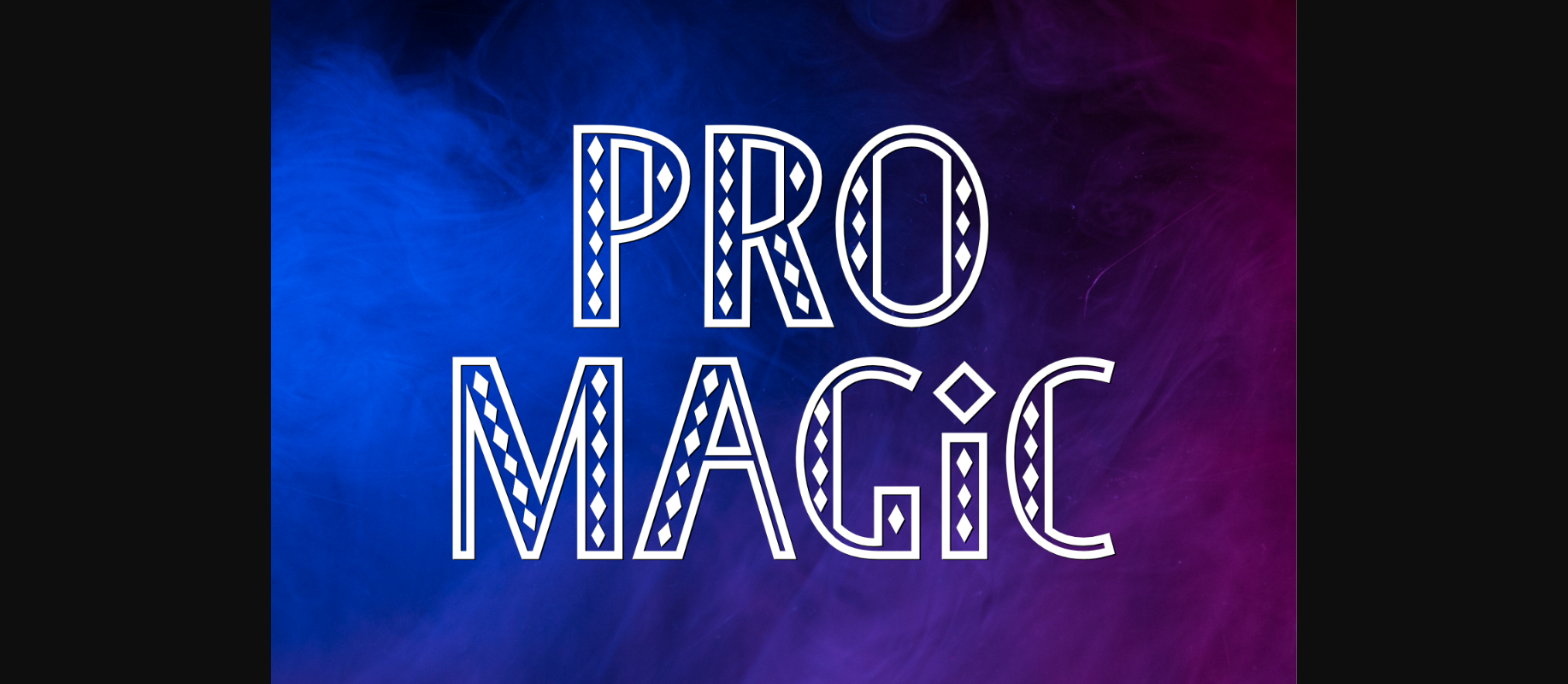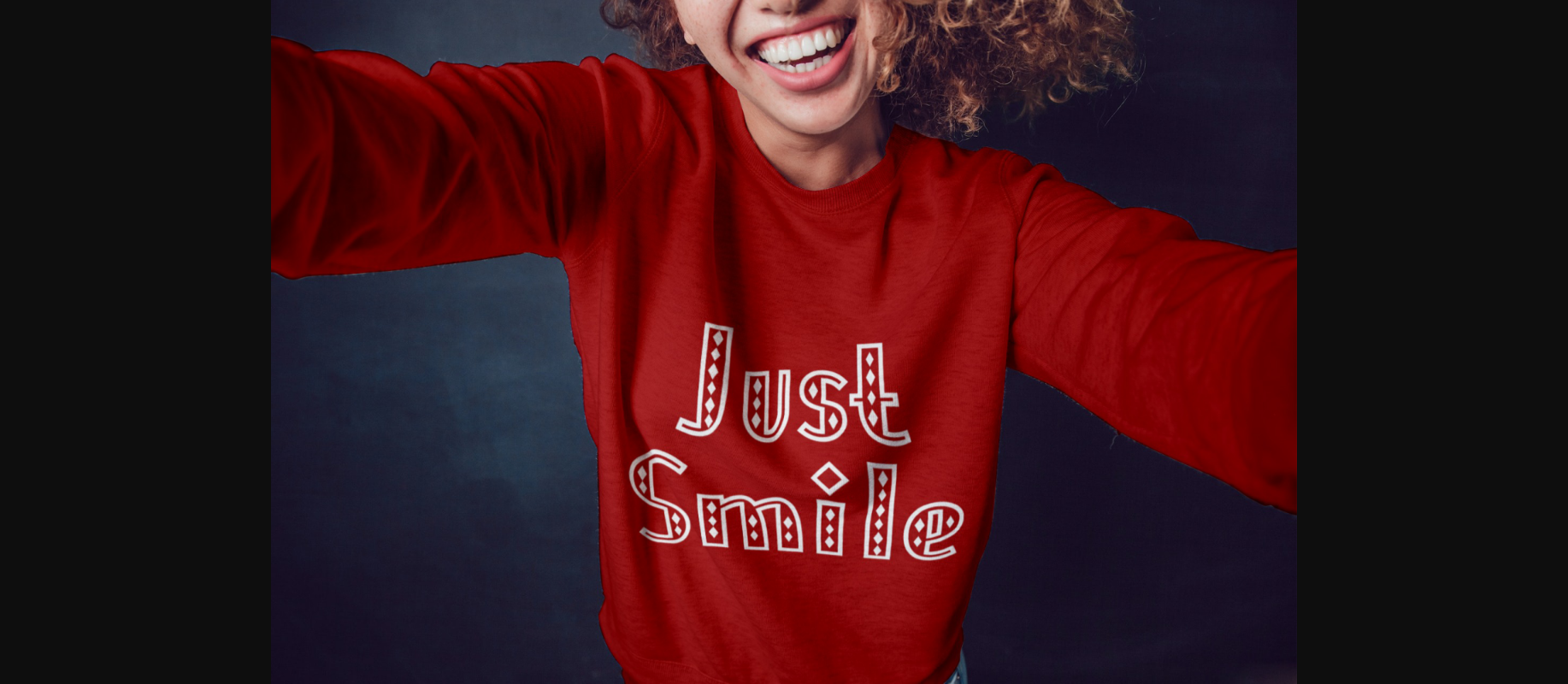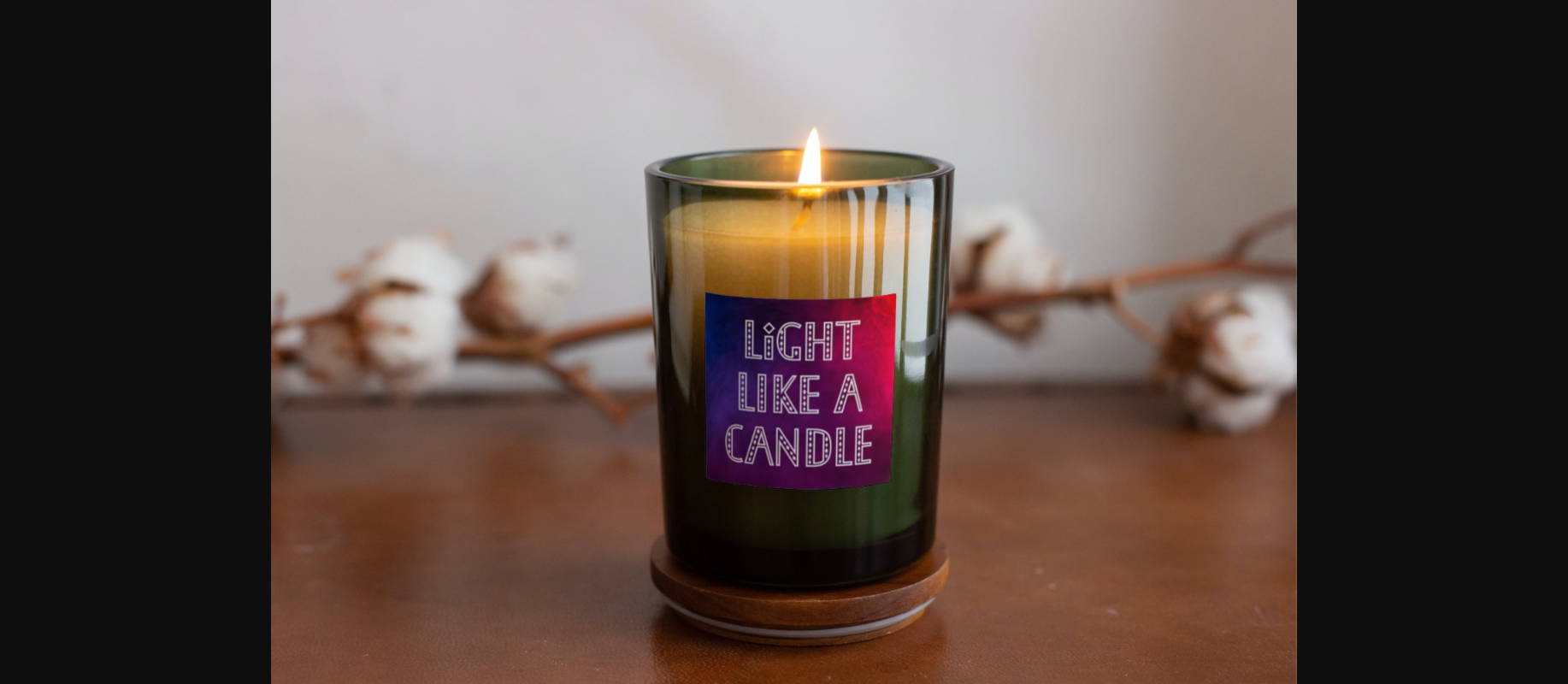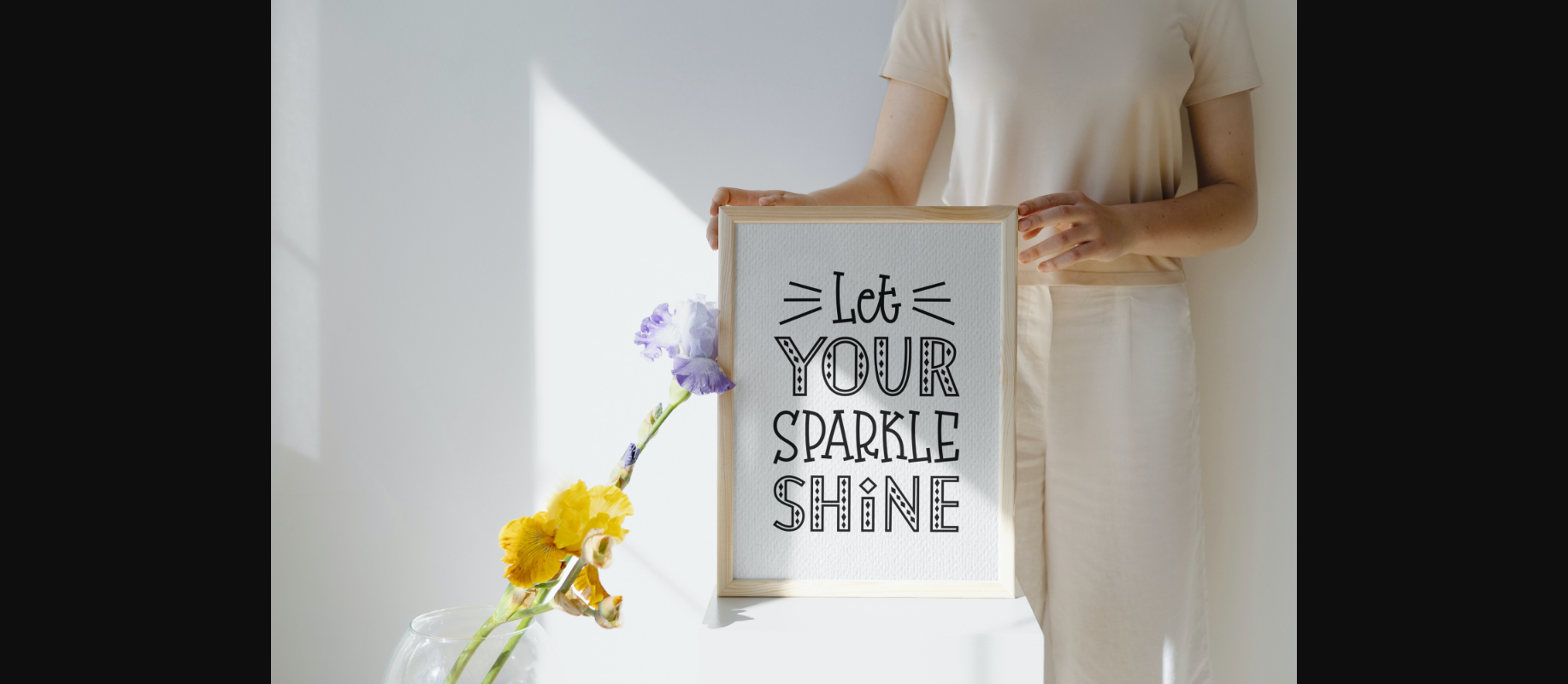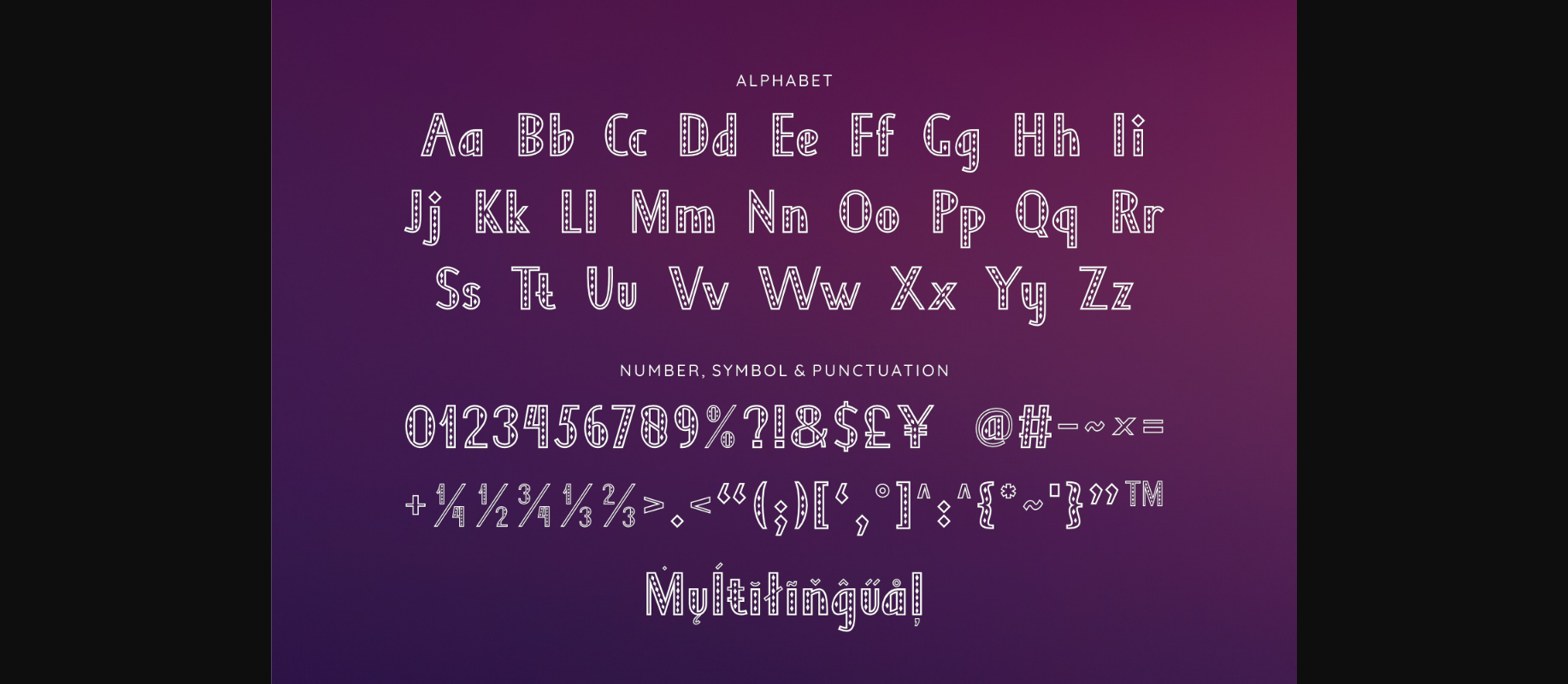
Pro Magic Font
About Pro Magic Font
Pro Magic is a cool decorative font. With its mesmerizing characters, this font will definitely immerse your designs into a magical world!